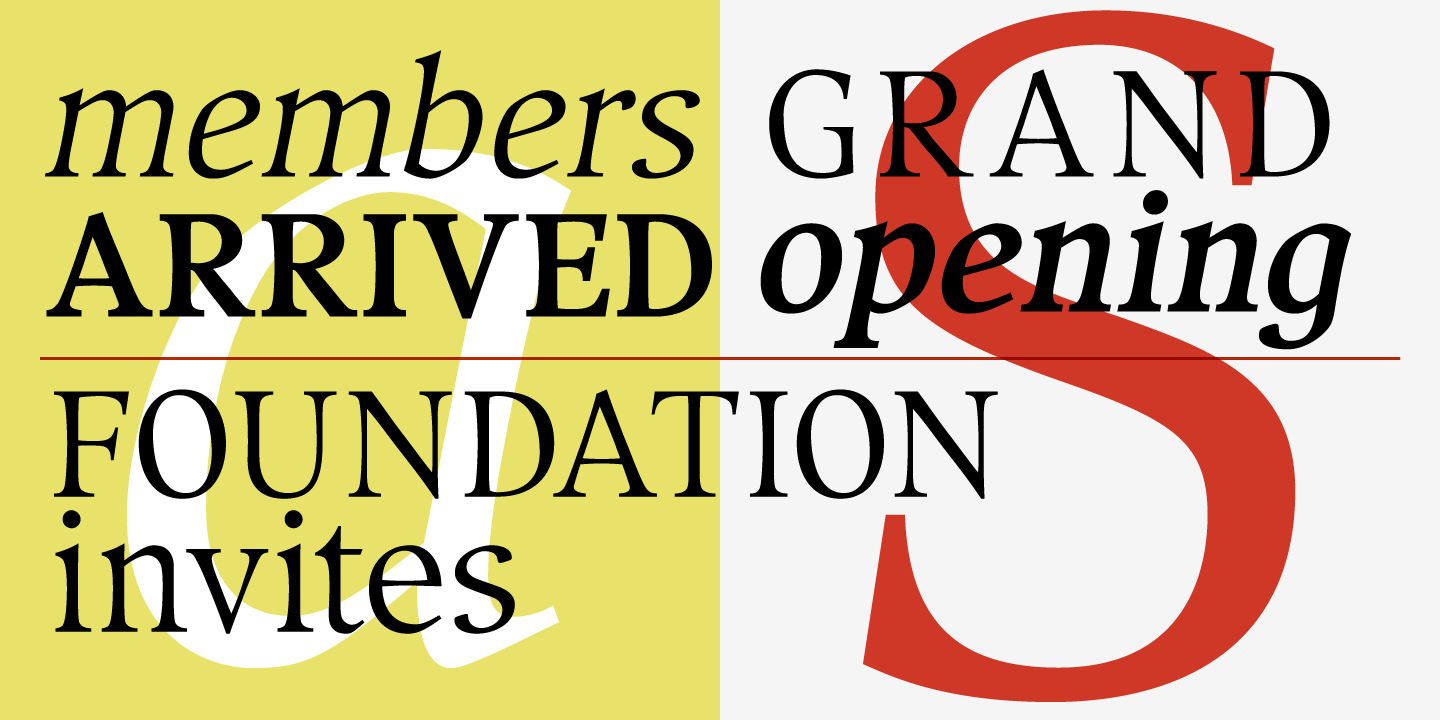
Compatil Exquisit Font is ideal for luxury brand communications, high-end fashion magazines, premium product catalogs, exclusive event invitations, sophisticated corporate reports, fine art publications, upscale restaurant branding, prestigious award ceremonies, elegant wedding stationery, and refined cultural institution materials.
What makes Compatil Exquisit Font exciting is its unparalleled refinement and exquisite attention to detail that elevates every design to museum-quality standards. This sophisticated typeface represents the pinnacle of typographic craftsmanship with its perfectly balanced proportions and flawless character relationships that create an immediate sense of luxury and exclusivity. The font's exquisite nature transforms ordinary communication into extraordinary experiences that command respect and admiration.
Compatil Exquisit Font family includes multiple weights with exceptional character refinement featuring precise optical adjustments and harmonious proportions. The typeface showcases masterful typographic engineering with extensive language support and professional-grade features that ensure flawless performance in demanding luxury applications.
Discerning designers select Compatil Exquisit Font Free Download for projects requiring absolute typographic perfection and uncompromising elegance. This exceptional typeface represents decades of German typographic excellence, combining traditional craftsmanship with contemporary sophistication to deliver unmatched visual quality. The meticulously refined letterforms ensure prestigious brand positioning across all media, making it indispensable for luxury goods companies, cultural institutions, and any organization seeking to communicate the highest standards of quality, taste, and exclusivity in today's competitive luxury marketplace.